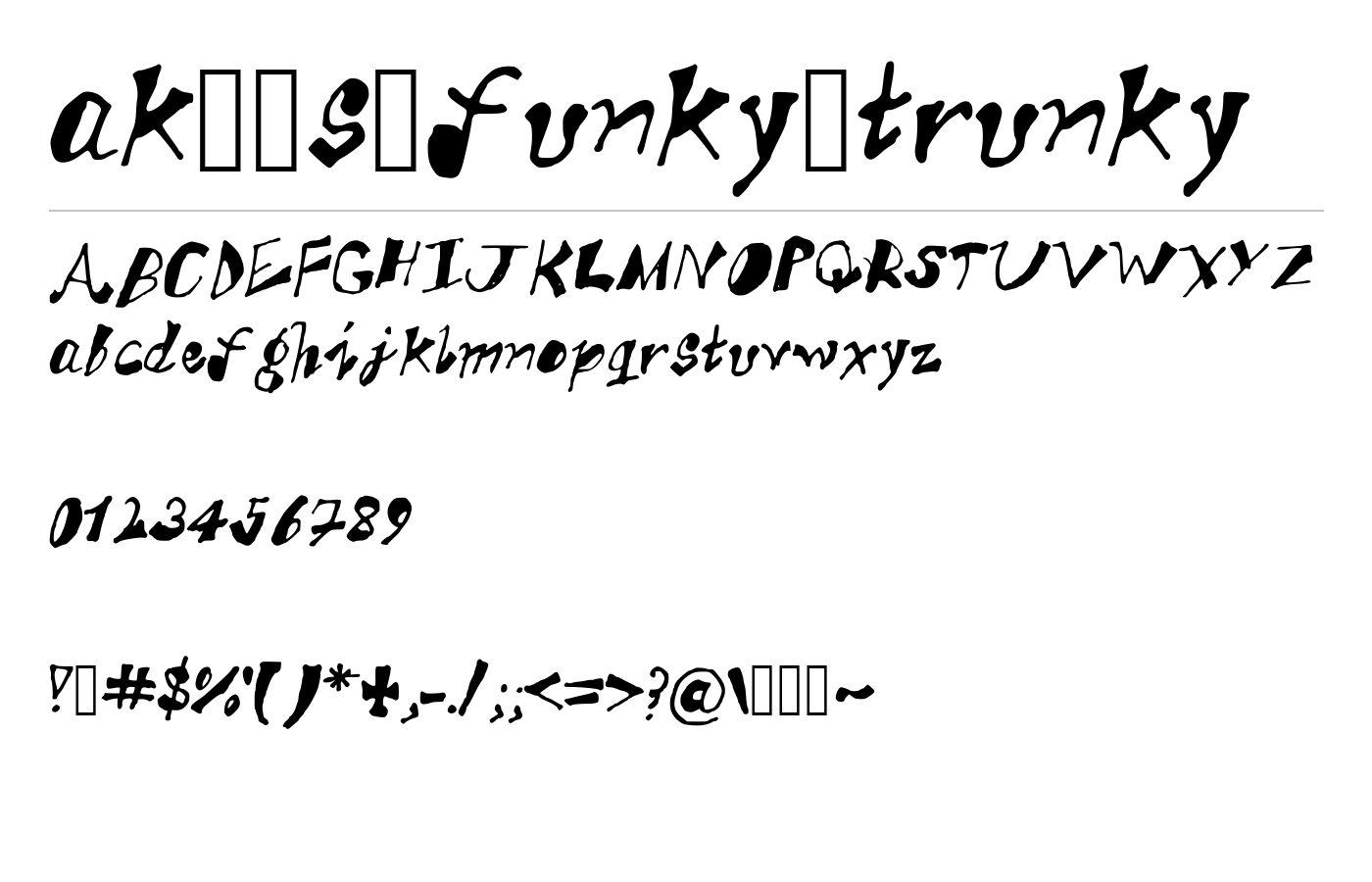
ak__s_funky_trunky is a playful and bold handwritten font with a slightly condensed width and lively, irregular strokes that create a quirky, artistic feel. Its dynamic shapes and varied stroke thicknesses, combined with unique letterforms, make it perfect for creative projects needing a fun, informal vibe such as posters, logos, or branding with a youthful, energetic personality. This font brings a sense of spontaneity and individuality, ideal for making an eye-catching statement.
ak__s_funky_trunky Font